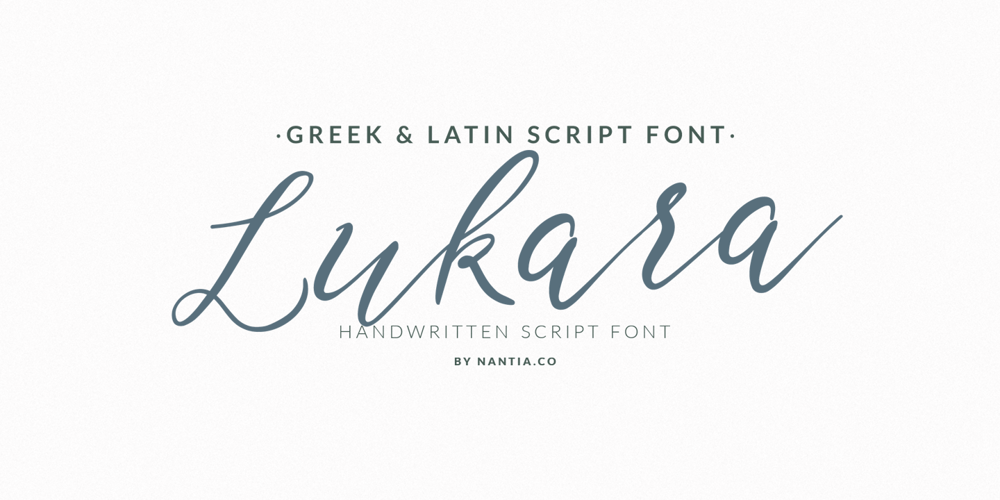
Lukara Font Family was designed by Konstantina Louka and published by Nantia.co. Lukara contains 1 styles and family package options. Lukara Script Font is a script decorative font with which you can achieve handwritten-type lettering feeling on the spot. Of course, Lukara supports a full set of Greek characters and an extended Latin character set with diacritics. Therefore, this multilingual font supports all European languages. In addition, the font has a really nice flow so you use it in a large text if you want to give them a handmade aesthetic. Also, it can be used on social media content, for branding, wedding invitations, or packaging.The bouncy romantic flow of this font is perfect for “save the date” cards and any other wedding print material. Again, this modern script font is perfect for a variety of graphic design needs like social media quotes, blog headers, posters, stationery, and branding.